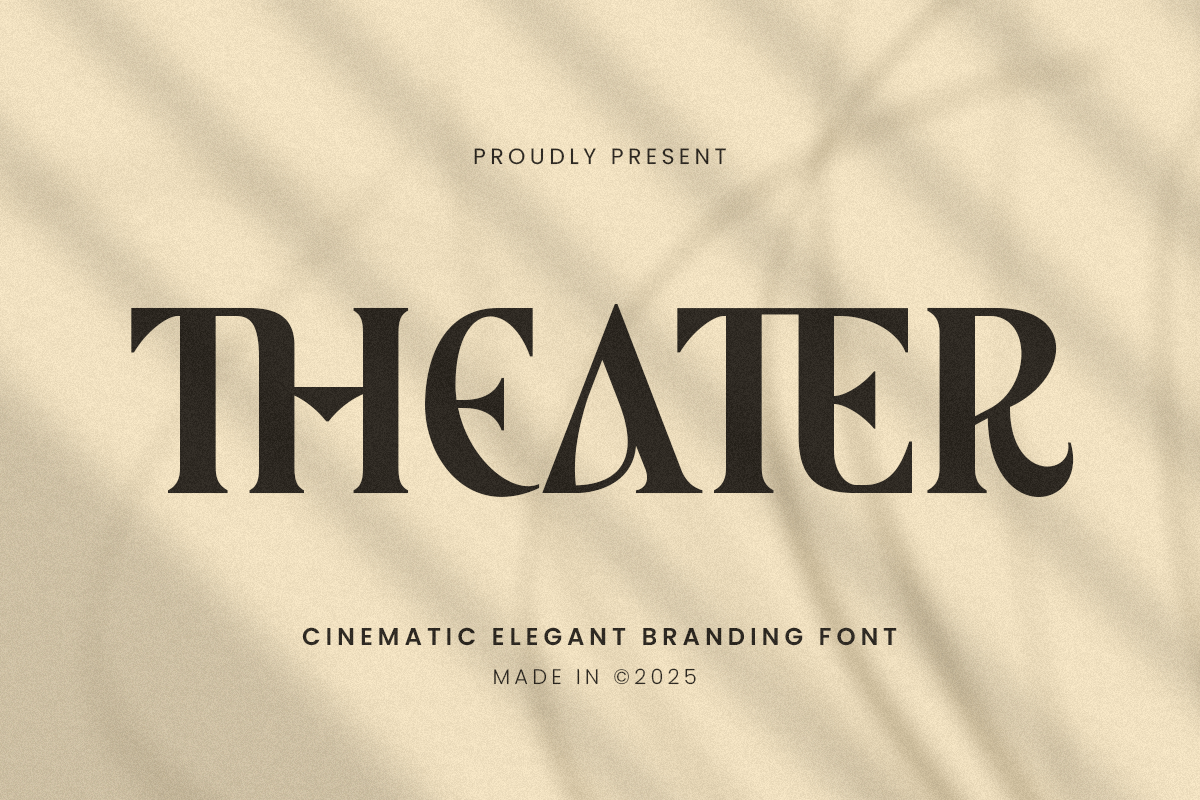
Theater
-Cinematic Ligature Branding FontTheater - Cinematic Ligature Branding Font
THEATER is a cinematic Ligature Branding font that brings the grandeur and refinement of classic cinema to modern branding and design. Perfect for high-end logos, film titles, editorial design, and sophisticated branding projects, THEATER combines timeless stylish with a contemporary touch.
Whether you're designing for luxury brands, film studios, or premium events, THEATER enhances every project with its graceful serifs and cinematic flair. Its unique design captures attention without overpowering the message, making it ideal for creating a distinguished visual identity in the world of high-end entertainment and luxury branding.
THEATER – Cinematic Ligature Branding Font Features
Unique serif letterforms with a cinematic style
Perfect for branding, film titles, logos, and editorial design
Classy, professional design with timeless appeal
OpenType features for advanced typographic styling
Create a lasting impression with THEATER – the perfect font for cinematic and luxurious branding. 🎬✨